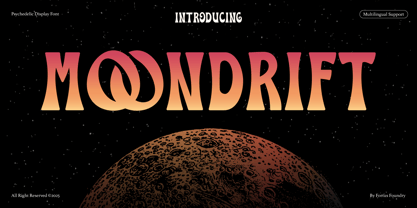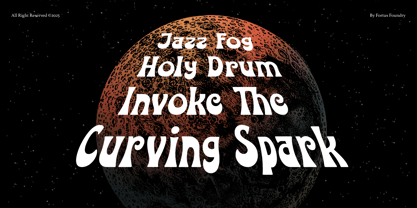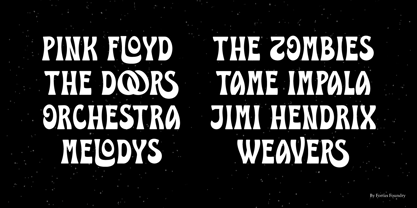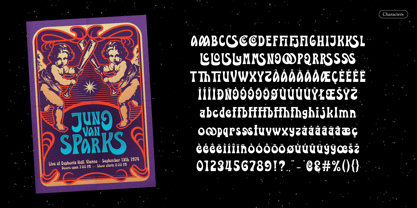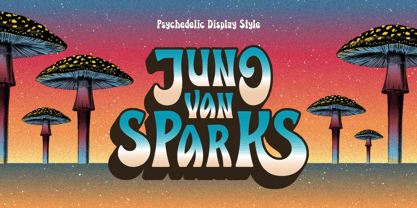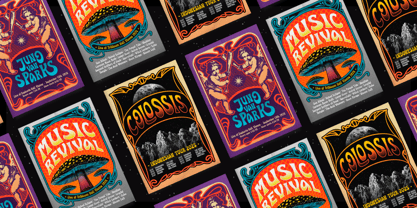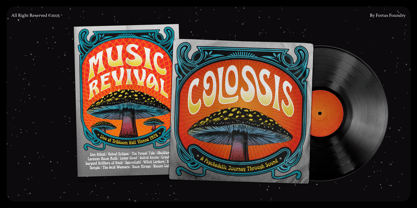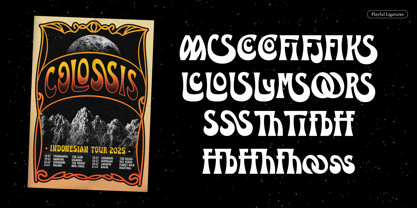
Moondrift
by Fortus Foundry
The Moondrift Font Family was designed by Zulhilmi Hanip and published by Fortus Foundry. Moondrift contains 1 styles. More about this family
MOONDRIFT is a dreamy display typeface inspired by vintage psychedelia, starlit skies, and retro album art. With flowing curves, bold shapes, and cosmic charm, it’s perfect for posters, branding, music visuals, and anything that needs a little lunar magic. Let your words drift beyond the ordinary.
Designers: Zulhilmi Hanip
Foundry: Fortus Foundry